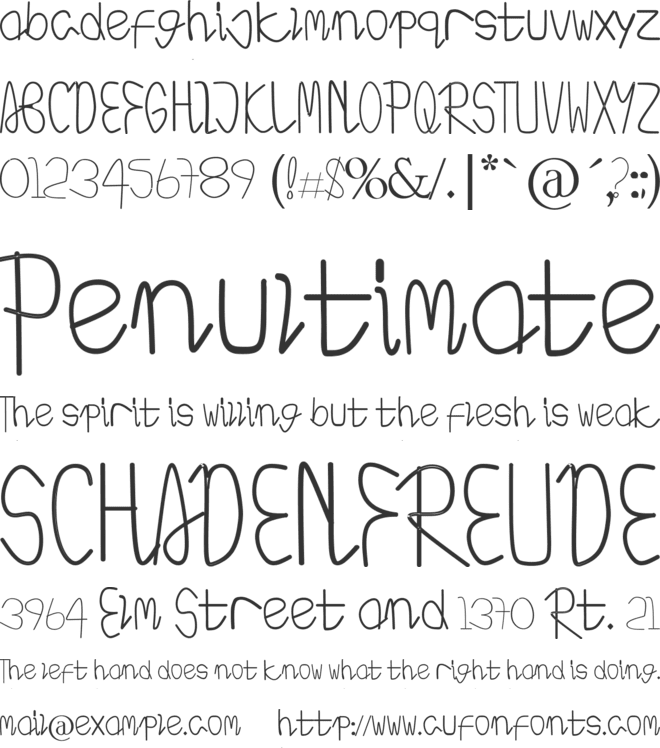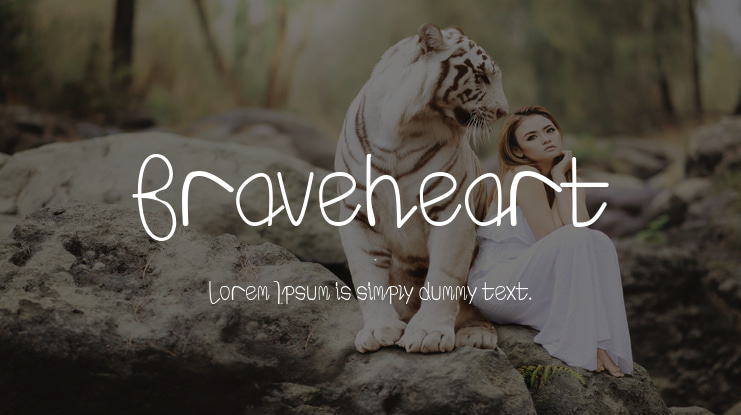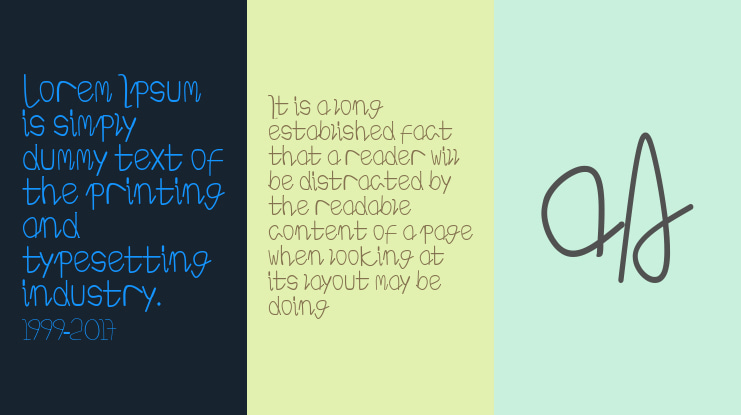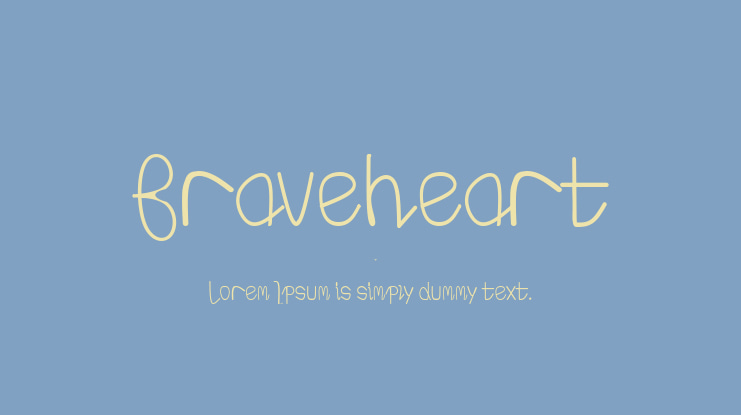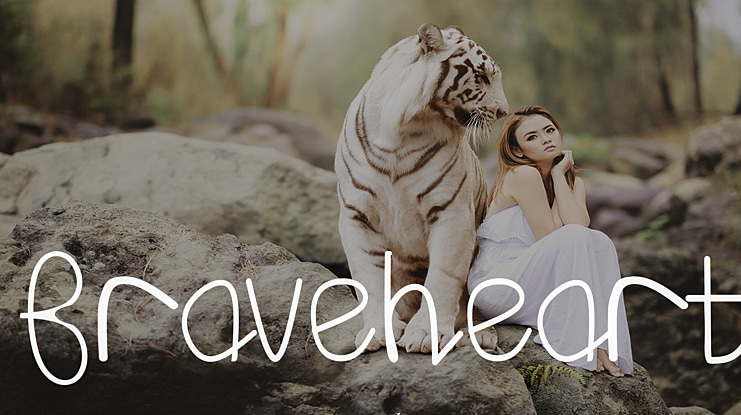
Braveheart Font
Braveheart is a sweet and friendly handwritten font. Its natural and unique style makes it incredibly fitting to a large pool of designs.